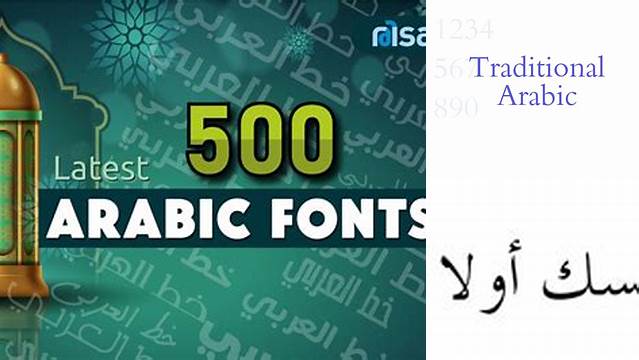
Hey guys! Looking for some cool, free traditional Arabic fonts to spice up your designs? You've come to the right place! In this article, we're diving deep into the world of Arabic typography, helping you discover some amazing free fonts you can download and use right now. Whether you're a seasoned designer, a student, or just someone who loves the beauty of Arabic script, we've got you covered. We'll explore different styles, point you to reliable download sources, and give you some tips on how to use these fonts effectively. Get ready to add a touch of elegance and cultural flair to your projects with these fantastic free resources. Let's get started and unlock the beauty of Arabic typography together!
H2: Understanding Traditional Arabic Font Styles
Alright, let's kick things off by getting a handle on the different styles of traditional Arabic fonts. Understanding these styles is super important because it helps you choose the right font for your project. Think of it like picking the perfect outfit β you wouldn't wear a tuxedo to the beach, right? The same goes for fonts. Arabic calligraphy is rich in history and diversity, evolving over centuries to create a wide range of beautiful scripts. Each style has its own unique characteristics, reflecting different regional influences, historical periods, and artistic preferences. One of the most recognizable styles is Thuluth, known for its elegant, flowing curves and intricate details. Thuluth is often used for headings, titles, and important religious texts because it conveys a sense of majesty and sophistication. Then there's Naskh, a more practical and legible style widely used in books, newspapers, and everyday documents. Naskh is considered easier to read at smaller sizes, making it perfect for body text. Ruq'ah, another popular style, is characterized by its simple, compact forms and quick strokes. It's often used for informal writing and signage. Diwani is known for its ornate and flowing style, often used in official documents, certificates, and artistic compositions. Its intricate letterforms require a skilled hand and convey a sense of prestige. Finally, we have Kufic, an early angular style that emphasizes geometric shapes and straight lines. Kufic fonts are often used for decorative purposes, logos, and historical references. By familiarizing yourself with these different styles, you'll be better equipped to select the most appropriate font for your design, ensuring your message is conveyed effectively and beautifully. Remember, the right font can make all the difference! And you can start using these fonts by a traditional arabic free font download
H3: Exploring Thuluth Font Characteristics and Uses
Let's delve deeper into Thuluth, shall we? As mentioned earlier, this style is the king of Arabic calligraphy, renowned for its elegance and grandeur. Imagine flowing ribbons of ink dancing across the page β that's the essence of Thuluth. The defining features of Thuluth include its graceful curves, long vertical strokes, and intricate details. The letters often have a distinct upward slant, adding to the sense of dynamism and movement. The style's complexity demands a high level of skill and artistry, making it a favorite for creating impressive works of art. Thuluth fonts are typically used for important headings, titles, and display text where a touch of sophistication is desired. Think of it as the font you'd use for a prestigious award certificate, a grand invitation, or the title of a beautiful book. Because of its ornate nature, Thuluth is less suited for body text. Its intricate details can become overwhelming and difficult to read at smaller sizes. However, in the hands of a skilled designer, Thuluth can be used creatively in logos, branding, and decorative elements to add a touch of luxury and cultural significance. If you're looking to create a project that demands attention and conveys a sense of prestige, a Thuluth font is an excellent choice. Just remember to use it strategically, allowing its beauty to shine without compromising readability. You can start your journey with a traditional arabic free font download.
H2: Tips for Effective Use of Arabic Fonts in Design
So, you've downloaded some fantastic traditional Arabic fonts β awesome! Now, let's talk about how to use them effectively to create stunning designs. The key is to balance aesthetics with readability. Arabic script has its own unique characteristics, and understanding these nuances will help you make the most of your fonts. First, consider the context of your design. Are you creating a poster, a website, or a book? The purpose of your design will influence your font choice and usage. For headlines and titles, you can afford to be more adventurous. Experiment with ornate styles like Thuluth or Diwani to grab attention and create a sense of cultural richness. However, for body text, readability is paramount. Opt for cleaner, more legible styles like Naskh to ensure your audience can easily read and understand your message. Pay attention to the kerning (the space between individual letters) and leading (the space between lines of text). These settings are crucial for creating balanced and visually appealing text. In Arabic, the letters can have complex shapes and connections, so proper kerning is especially important to prevent letters from overlapping or appearing too far apart. Leading should be adjusted to ensure the text is comfortable to read and doesn't feel cramped. Don't be afraid to experiment with different font sizes and weights to create visual hierarchy and emphasize important information. Use bold or italic styles sparingly to highlight key words or phrases. And finally, consider the overall design aesthetic. Arabic fonts can be incredibly beautiful on their own, but they also work well with other design elements. Use colors, images, and layouts that complement your chosen font and enhance the overall message. By following these tips, you can harness the power of Arabic typography to create visually stunning and culturally relevant designs. Don't hesitate to explore your creativity and experiment with different combinations until you find the perfect look for your project. To help you get started, search for a traditional arabic free font download.
H3: Combining Arabic Fonts with Other Design Elements
Let's talk about the art of combining traditional Arabic fonts with other design elements. This is where the magic happens, guys! To create truly impactful designs, you need to think about how your Arabic fonts interact with other visual components like images, colors, and layout. A well-chosen image can dramatically enhance the impact of your Arabic typography. Choose images that reflect the content of your text and complement the style of your font. For example, if you're using a Thuluth font, consider pairing it with a sophisticated image that conveys a sense of luxury or elegance. On the other hand, a Kufic font might work well with an image that has a historical or geometric theme. Color plays a vital role in visual communication. Choose colors that reflect the tone and message of your design, while also complementing the Arabic font. Consider the cultural significance of colors in Arabic culture. Green, for instance, is often associated with Islam and can add a sense of authenticity. Gold and other metallic colors can create a sense of luxury and prestige. Layout is another crucial aspect of design. Pay attention to the placement of your text, images, and other elements. Use white space effectively to create a balanced and visually appealing composition. Experiment with different layouts to find the one that best showcases your Arabic fonts and enhances your message. And letβs not forget about texture! Incorporating textures into your designs can add depth and visual interest. Consider using textures like paper, fabric, or even wood to create a more tactile and engaging experience. Experiment with different textures to find the ones that complement your Arabic fonts and enhance the overall design. Overall, the key is to think holistically. Consider how all the elements of your design work together to create a cohesive and compelling visual experience. With a little creativity and experimentation, you can combine traditional Arabic fonts with other design elements to create stunning and memorable designs. And remember, you can always start by looking for a traditional arabic free font download.